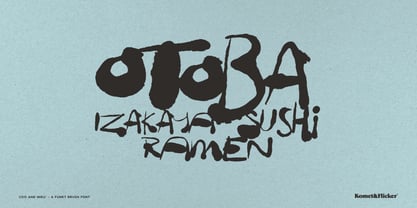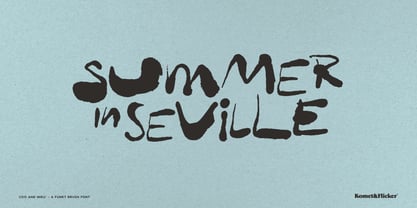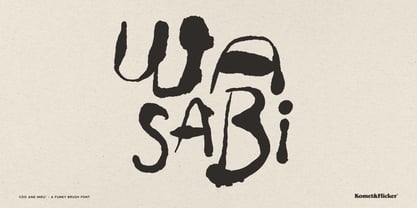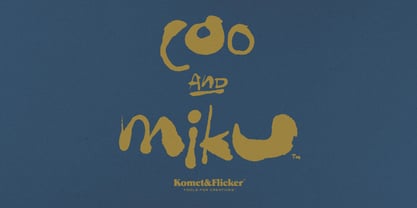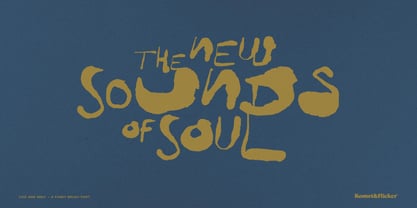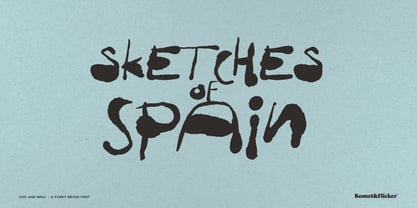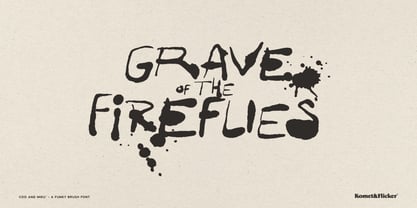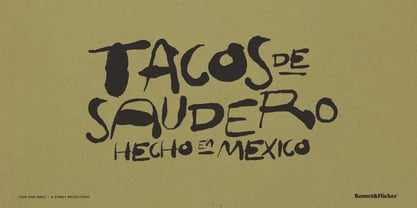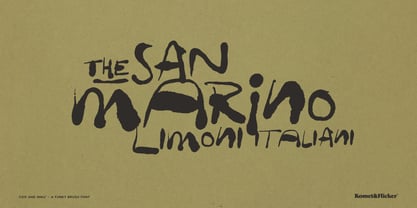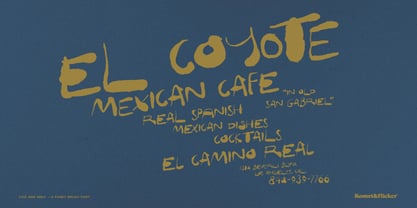
Coo and Miku
by Komet & Flicker
The Coo and Miku Font Family was designed by David Phillips and published by Komet & Flicker. Coo and Miku contains 1 styles. More about this family
Coo & Miku is a dynamic and expressive typeface inspired by the loose elegance of Japanese brush art. Designed to capture a natural hand-drawn rhythm, this font embraces imperfection and movement. With its loose and leaky pen style, Coo & Miku features organic lines, subtle ink bleeds, and relaxed curves that give every letterform a lively personality. The strokes feel spontaneous and artistic, as if written with an over-inked brush pen gliding across textured paper. The result is a font that feels warm, creative, and effortlessly expressive, perfect for projects that need a touch of handcrafted charm. THIS FONT INCLUDES • Full A-Z upper and lowercase basic latin characters • Select European specific characters • Numbers, punctuation, and select symbols • Pre-made common fractions • Set of 8 ink splatters • Set of 11 custom connecting word glyphs In Illustrator, the extra custom glyphs can easily be accessed in the "Type → Glyphs" panel. In Photoshop they can be accessed through "Type → Panels → Glyphs Panel".
Designers: David Phillips
Foundry: Komet & Flicker